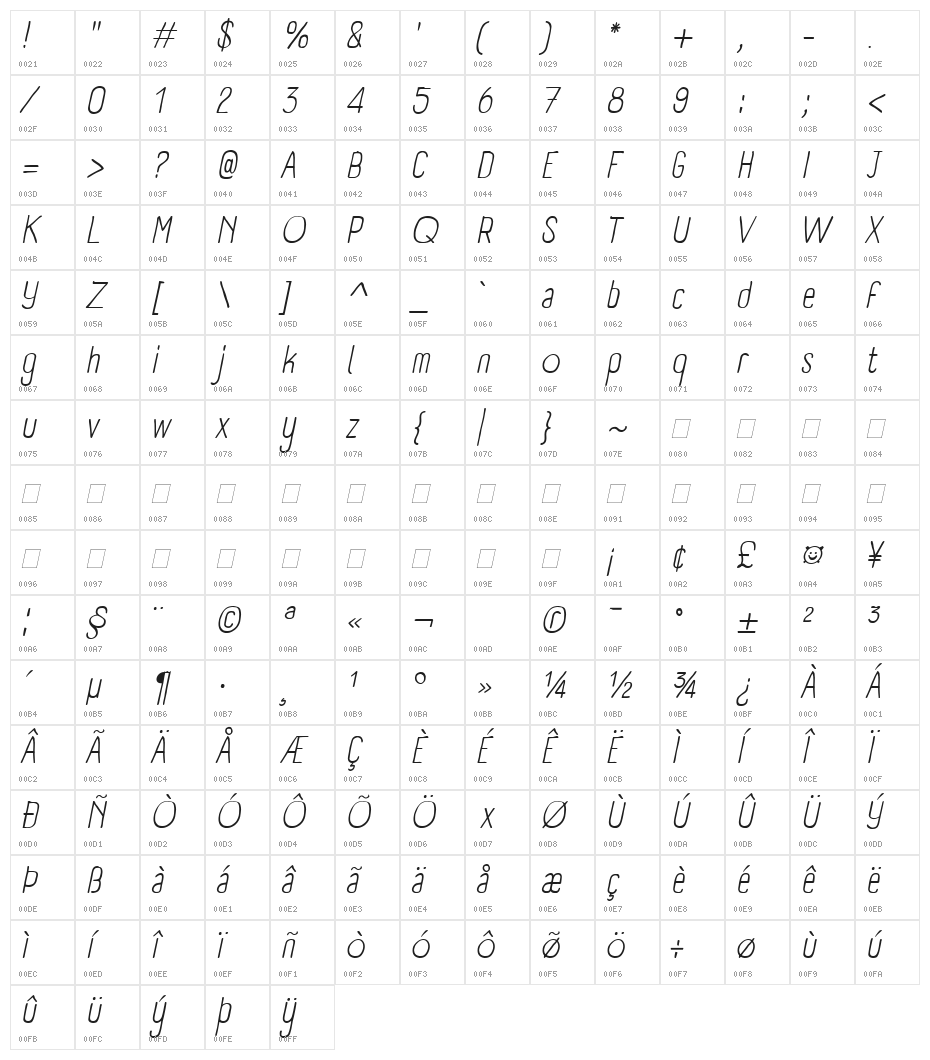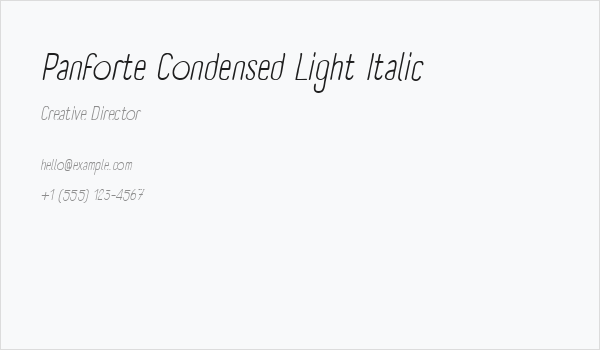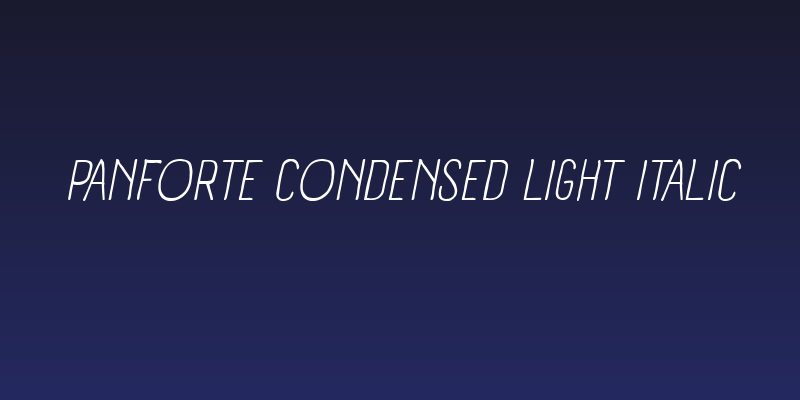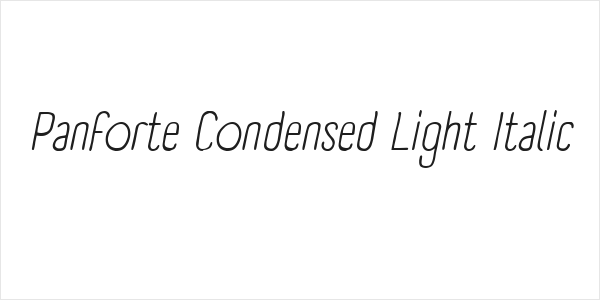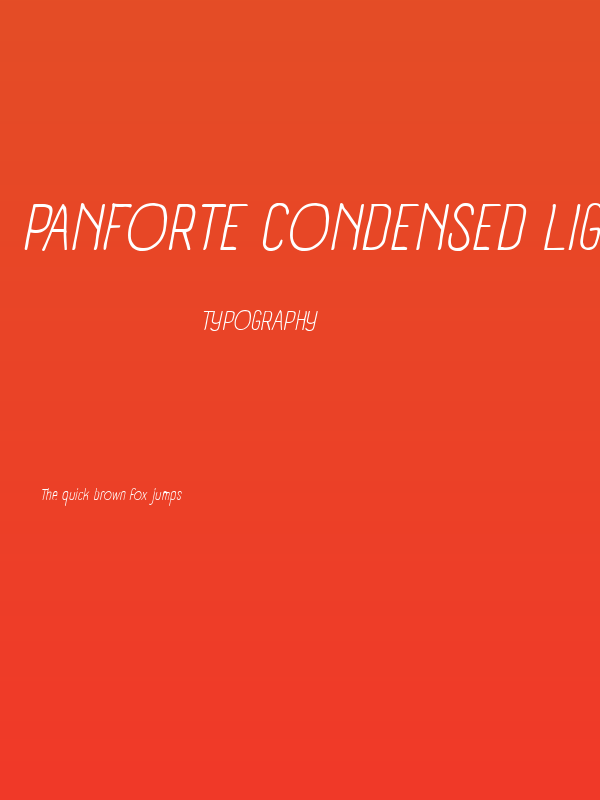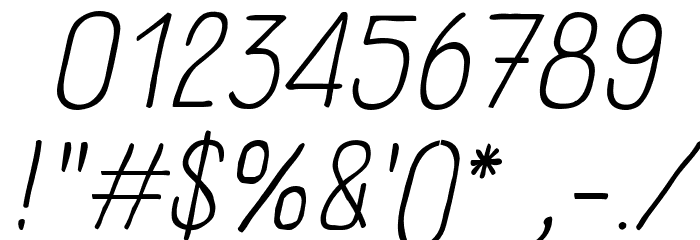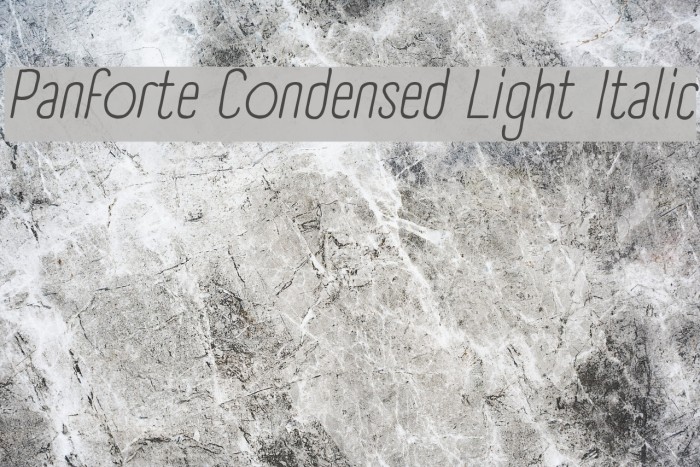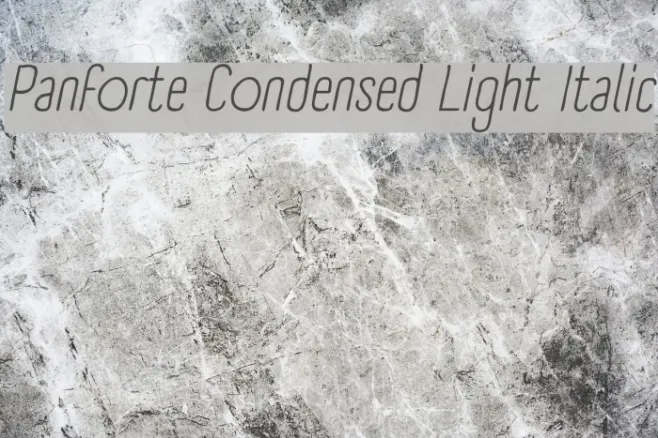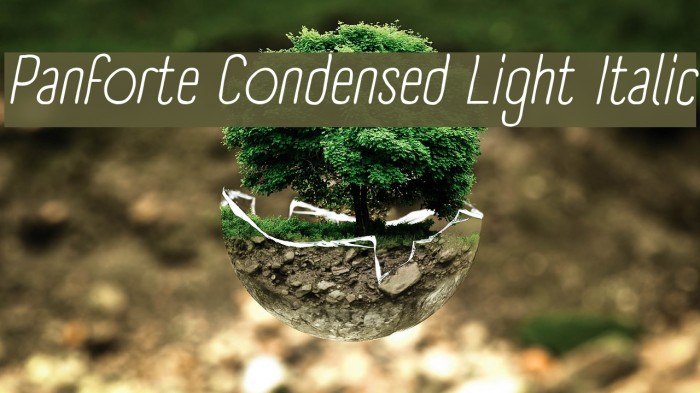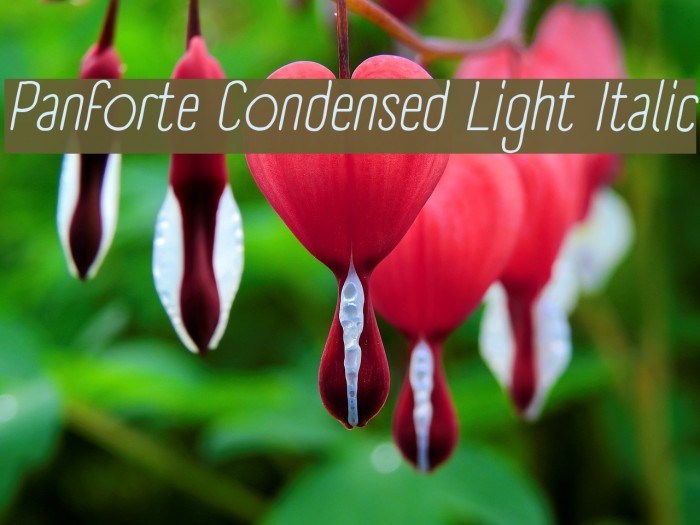
Panforte Condensed Light Italic Font
Panforte Condensed Light Italic Description
This font features a sleek and modern design with a condensed structure, giving it a streamlined appearance. The light weight of the strokes adds an airy and elegant feel, while the italic slant introduces a sense of motion and dynamism. The characters are tall and narrow, which enhances the condensed look, making it suitable for space-saving applications. The font maintains a consistent stroke width, offering a clean and uniform appearance. Its simplicity and clarity make it versatile for various design contexts.
| Proposed Projects | Ideal for fashion magazines, modern branding, elegant invitations, and minimalist web design. |